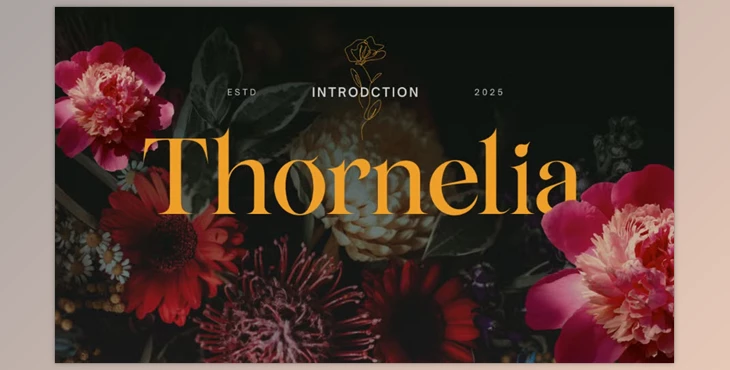
Thornelia Modern Gothic Serif Font:
Thornelia is a sophisticated serif font blending gothic romance and modern style. Every word in this typeface is forged to be high-contrast and eye-catching. With Thornelia, sharp edges, smooth curves, and extraordinary ligatures blend to transform any design into something strikingly editorial. It is specially crafted for those who wish to add poetic strength to their projects.
From fashion branding and album covers to magical quote graphics, this font performs flawlessly across multiple creative uses. With this typeface, designs such as large headings, magazine spreads, packaging, and even weddings become sophisticated and theatrical. Offering uppercase and lowercase letters, numbers, punctuation, multi-language support, and a set of regular font files (OTF, TTF, WOFF) makes Thornelia a must-have. It also features bonus ligatures and stylistic alternates, all PUA encoded and ready to use.
Thornelia is perfect for branding, logo design, editorial layout, and wedding invitations. It is compatible with design software such as Canva, Photoshop, and Illustrator. This font gives music posters, lifestyle visuals, and Instagram quotes not only remarkable boldness but also a sense of ageless beauty that allows your words to bloom.